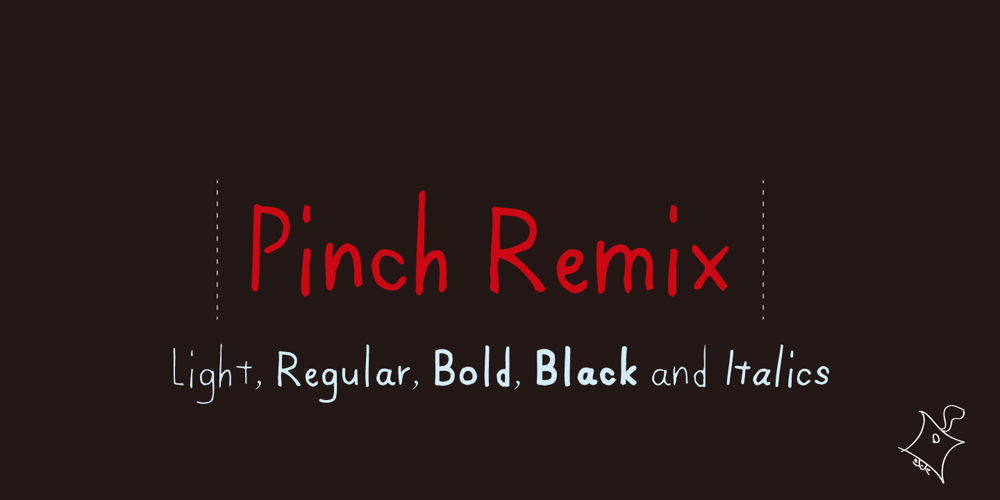
Pinch Remix Font Family was designed by Shuji Kikuchi and published by sugargliderz. Pinch Remix contains 8 styles and family package options. Pinch Remix is a recreated version of a typeface I made in 2007. The form hasn’t changed at all, but I composed the family by increasing the number of weights and revising the spacing and kerning. At first it was created from randomly drawing an alphabet offhand on paper with a drawing pen. Then I figured that perhaps it had the framework for a typeface. Originally because it was just a memo, I had already thrown in the trash once. Yet something about it caught me, and when I turned to look down at it, I couldn’t throw it away.